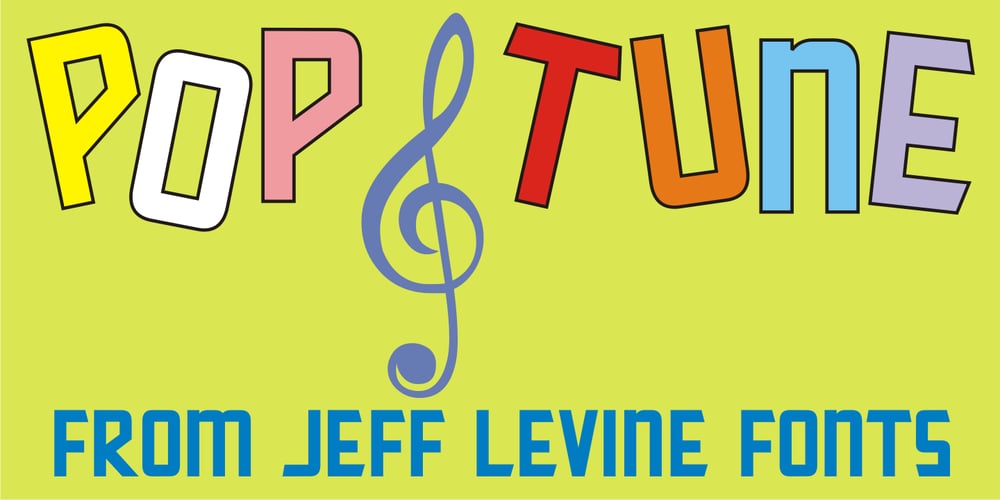
Pop Tune JNL
Pop Tune JNL font
Pop Tune JNL Font Family was designed by Jeff Levine and published by Jeff Levine. Pop Tune JNL contains 1 styles and family package options. Pop Tune JNL comes from the hand-lettered title on sheet music for “Does Your Heart Beat for Me?”. This 1940s hit was co-written and made famous by Russ Morgan and His Orchestra. Many vintage pieces of sheet music employed hand-lettered titles and cartoon illustrations to emphasize the topic of the song itself.